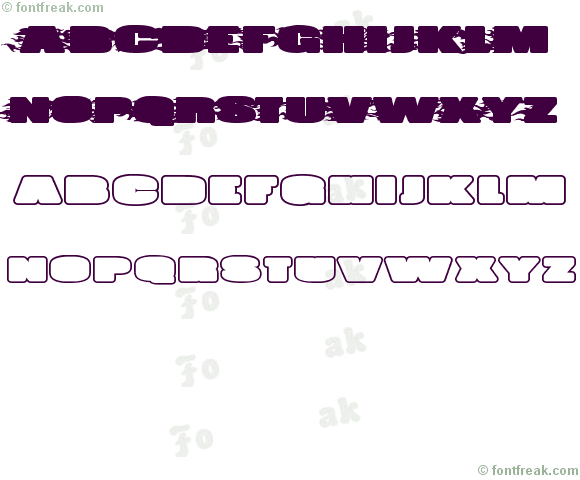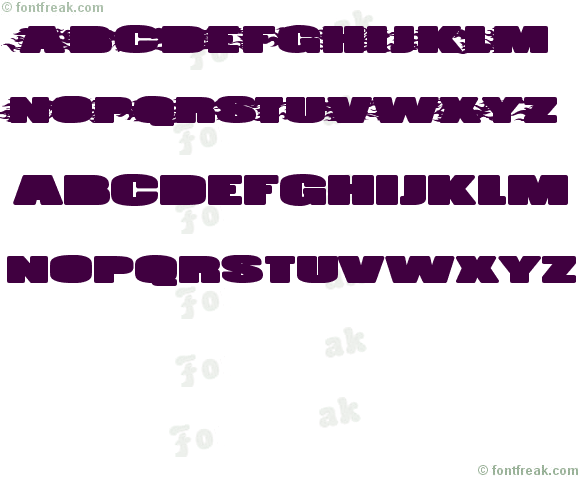
JUMBO BURN A
About JUMBO BURN A
The JUMBO BURN A font by Maelle.K is a captivating display typeface that exudes a bold, dynamic character. This font falls under the decorative category, making it perfect for projects that require a striking visual impact. With its unique design elements, JUMBO BURN A showcases a playful interplay between thick and thin strokes, contributing to its eye-catching appeal. The font features a slightly irregular spacing that adds to its energetic vibe, while the decorative elements evoke a sense of movement, reminiscent of flames or bursts of energy.
This font is particularly well-suited for a variety of creative applications. Its bold and fiery aesthetic makes it an excellent choice for movie posters, where it can attract attention and create an exciting atmosphere. Additionally, JUMBO BURN A is ideal for restaurant menus that aim to convey a lively and modern dining experience. It can also shine in branding materials for small businesses, especially those in the entertainment or food industry, where a fun and vibrant image is essential. Furthermore, this font can elevate invitations for themed events, parties, or festivals, adding a unique flair that guests will remember.
The target audience for JUMBO BURN A includes graphic designers, small business owners, and content creators looking to add a distinctive touch to their projects. This font allows for creativity and expression, making it a favorite among those who want their work to stand out.